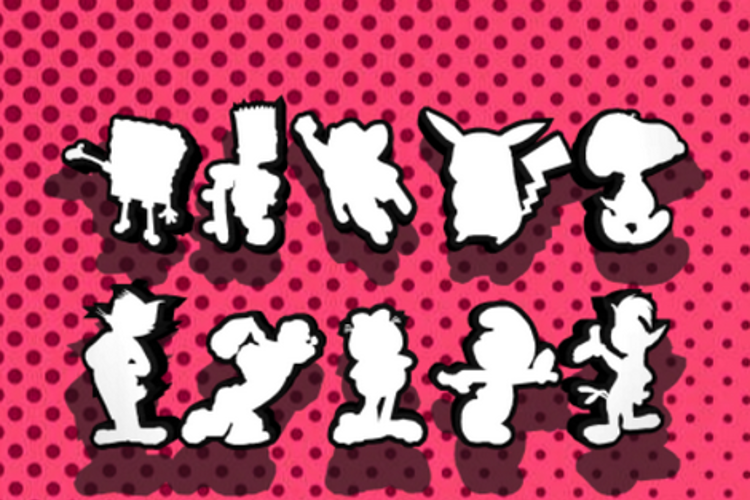
Toons ! Font
3D Regular Style
Toons! Toons! Toons!" contains over 60 silhouette dings of famous cartoon characters that are not from Warner Bros or Disney. There are dings of Rocky & Bullwinkle, Tom & Jerry, The Simpsons, Garfield, Popeye, Woody Woodpecker, Peantuts, Spongebob, Family Guy and many more. Each ding has a mirrored counterpart between the upper and lower cases.